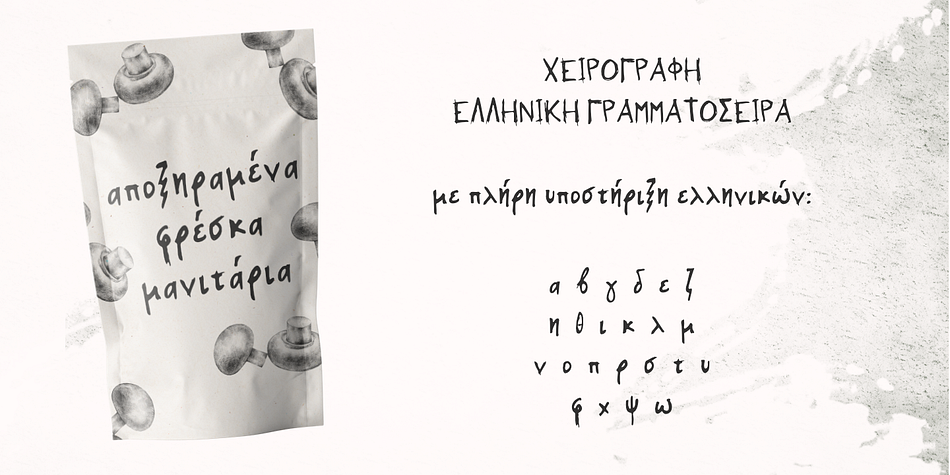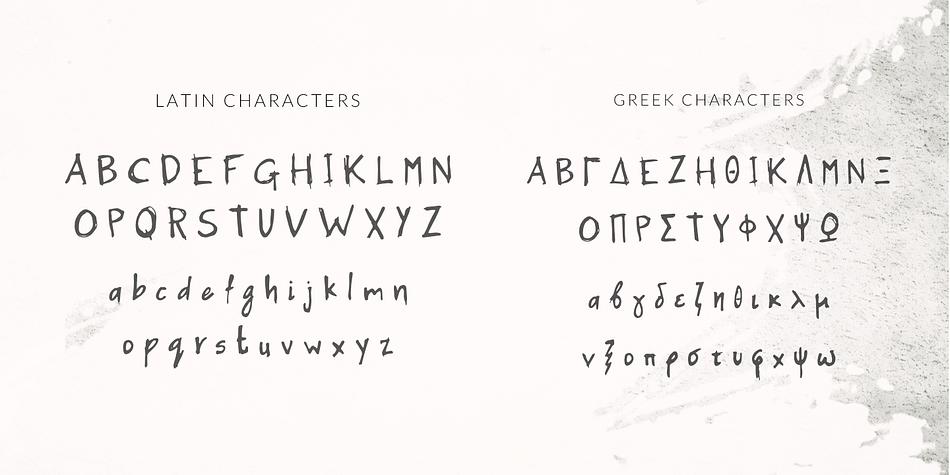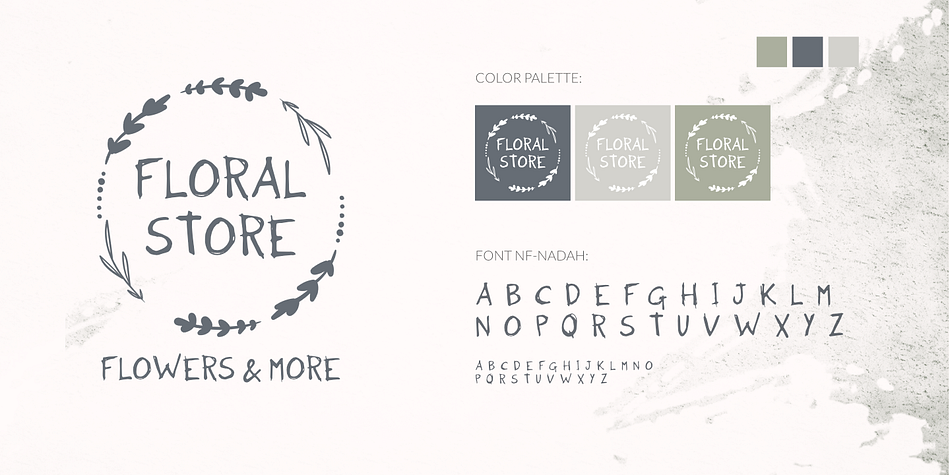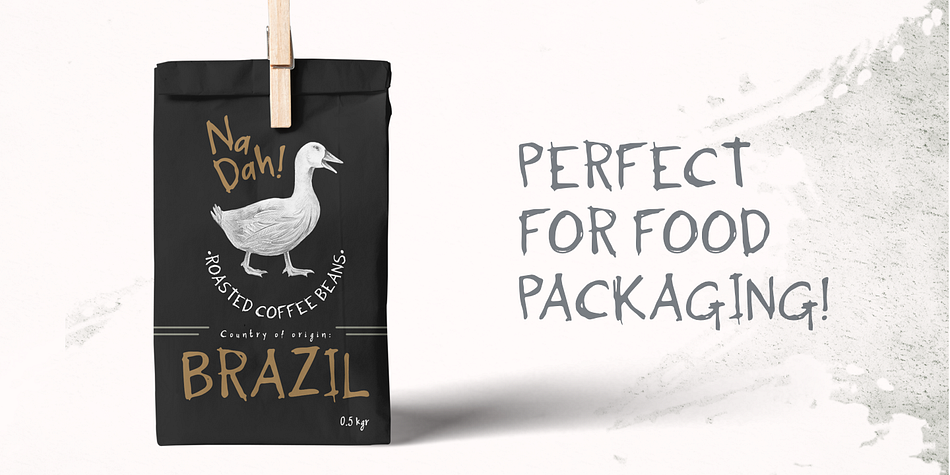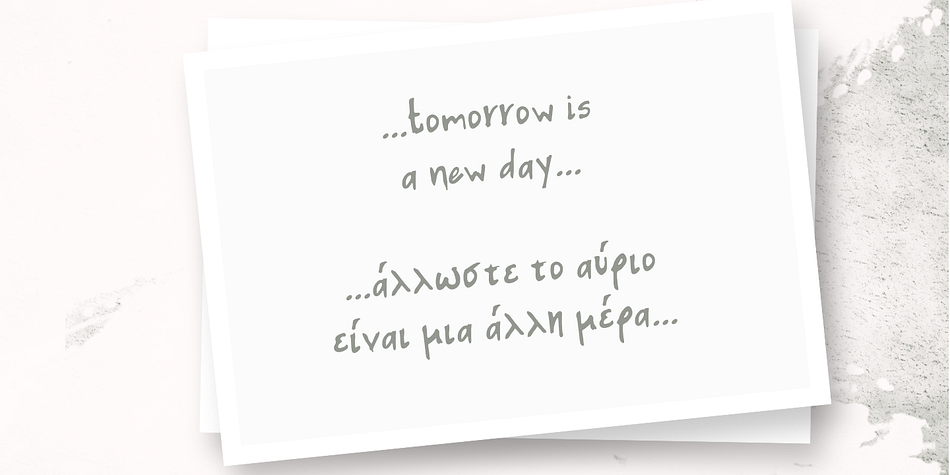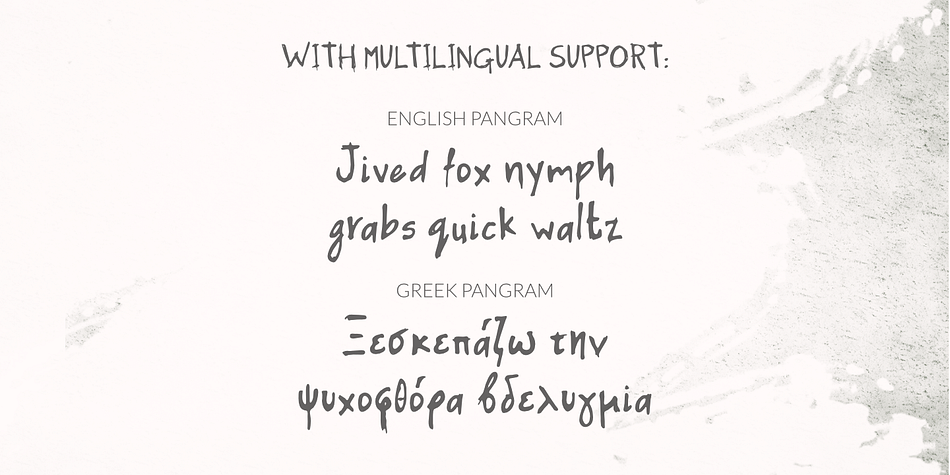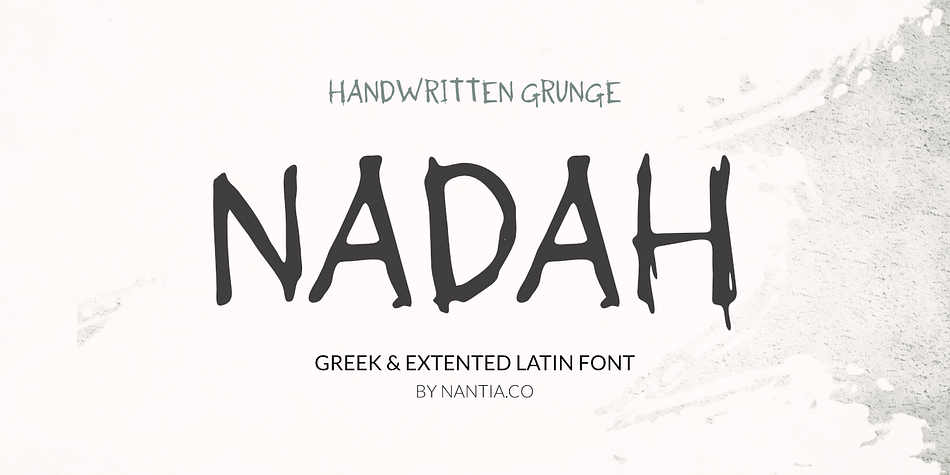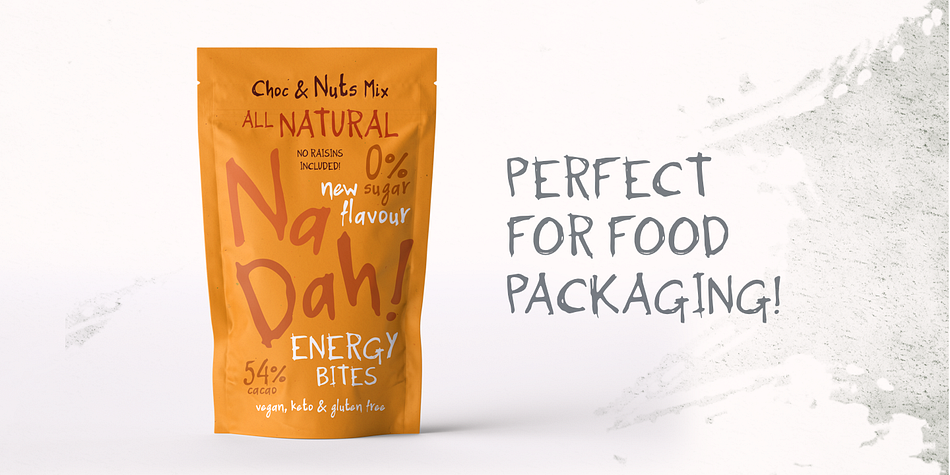
Nadah is a grunge and hand drawn font published by Konstantina Louka.
Nadah Grunge Handwritten Greek Font
Nadah Grunge Handwritten Greek font is a decorative font. Of course, the font supports a Greek character set and a full extended Latin character set with diacritics. If you are searching for a handcrafted grunge font, search no more. The raw energy, organic grudge feeling of the font that makes it ideal for the music industry. Also, it’s ideal for creating social media content, for branding, poster design, wedding invitations, or any other packaging.
Extended Latin Characters
Greek Characters